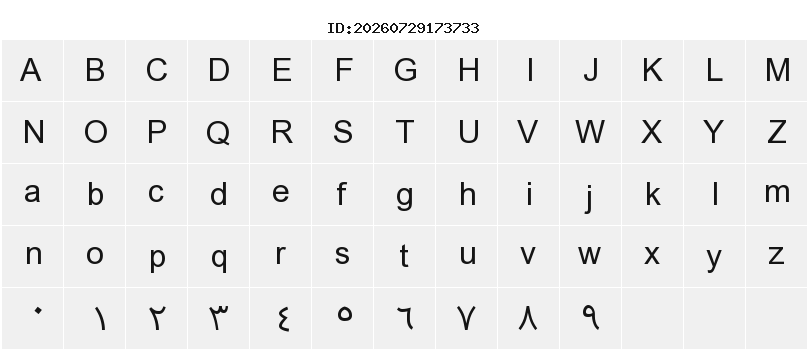
Kobani is not alone Preview
• Font Name: Kobani is not alone
• Designer: Manoochehr Totonchi
• Manufacturer: Kobani
• Description: Unicode based Kurdish Fonts
Kobani is not alone.ttf is a modern, elegant sans-serif font designed for ultimate readability and visual harmony. Perfect for branding, headlines, web design, and print materials.